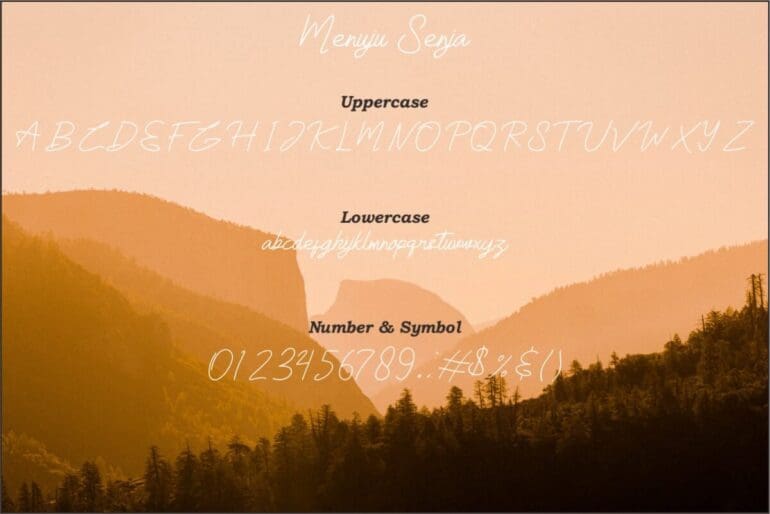
Menuju Senja Font
Menuju Senja this is Handwritten font. It’s perfect for your design such as logo, branding, graphic design, photography, product, packaging, social media posts, etc.